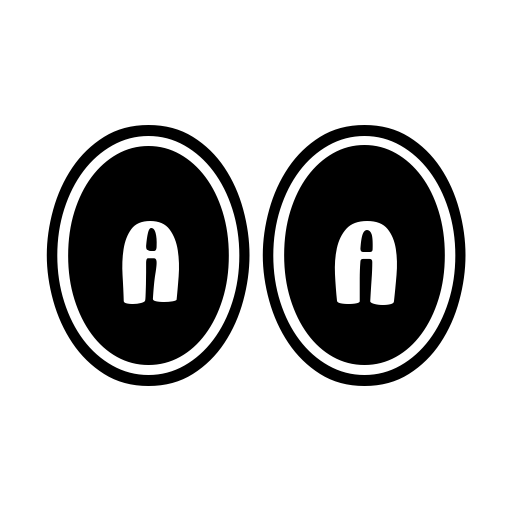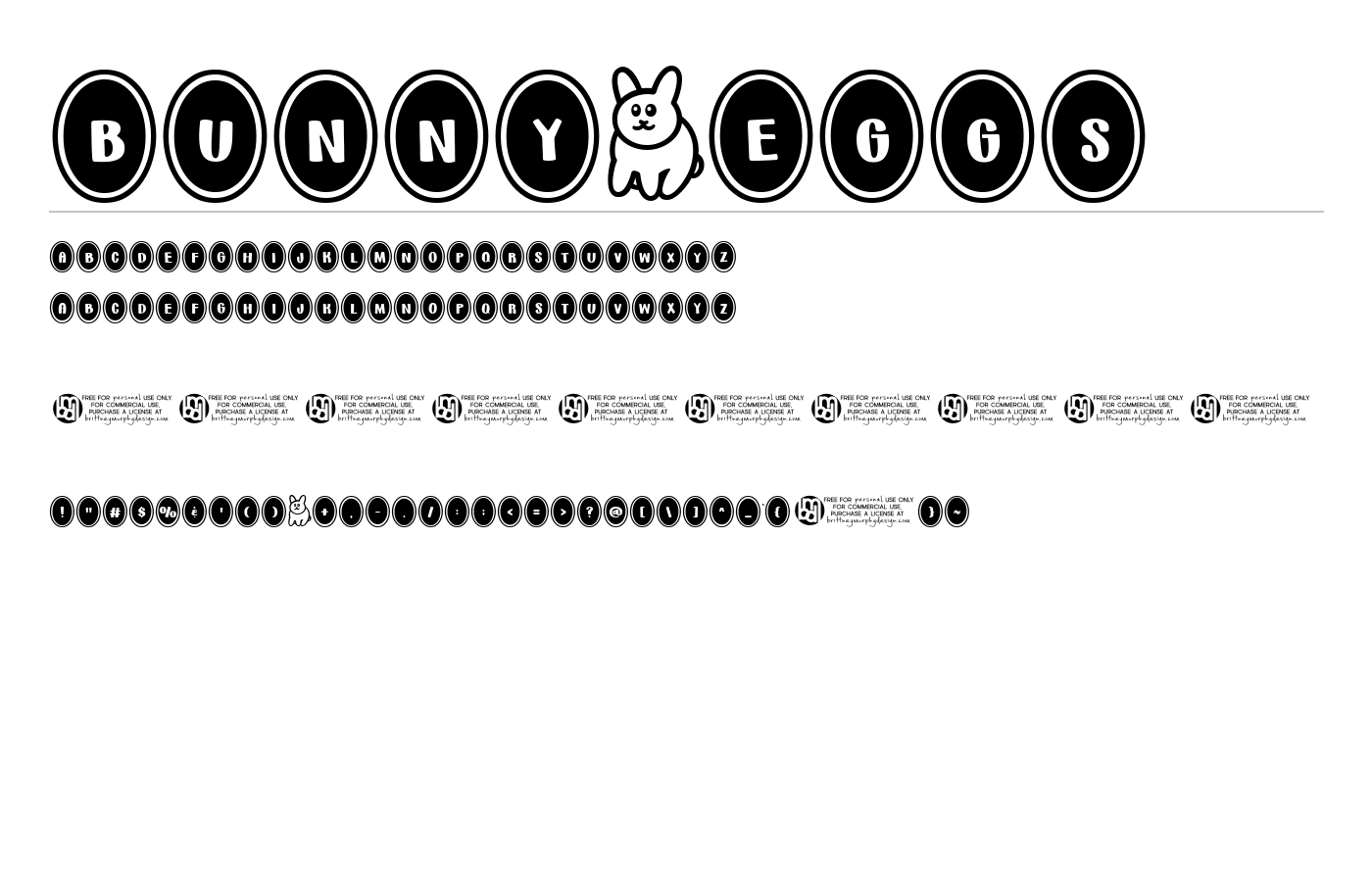
Bunny*Eggs is a playful and whimsical sans serif display font featuring bold, rounded letterforms each enclosed in an egg-shaped outline, perfectly paired with cute bunny motifs. Its informal and fun style makes it ideal for children’s projects, holiday themes, or lighthearted branding that seeks a quirky and approachable vibe. This font works best in headlines, logos, and festive materials where a cheerful, eye-catching look is desired.